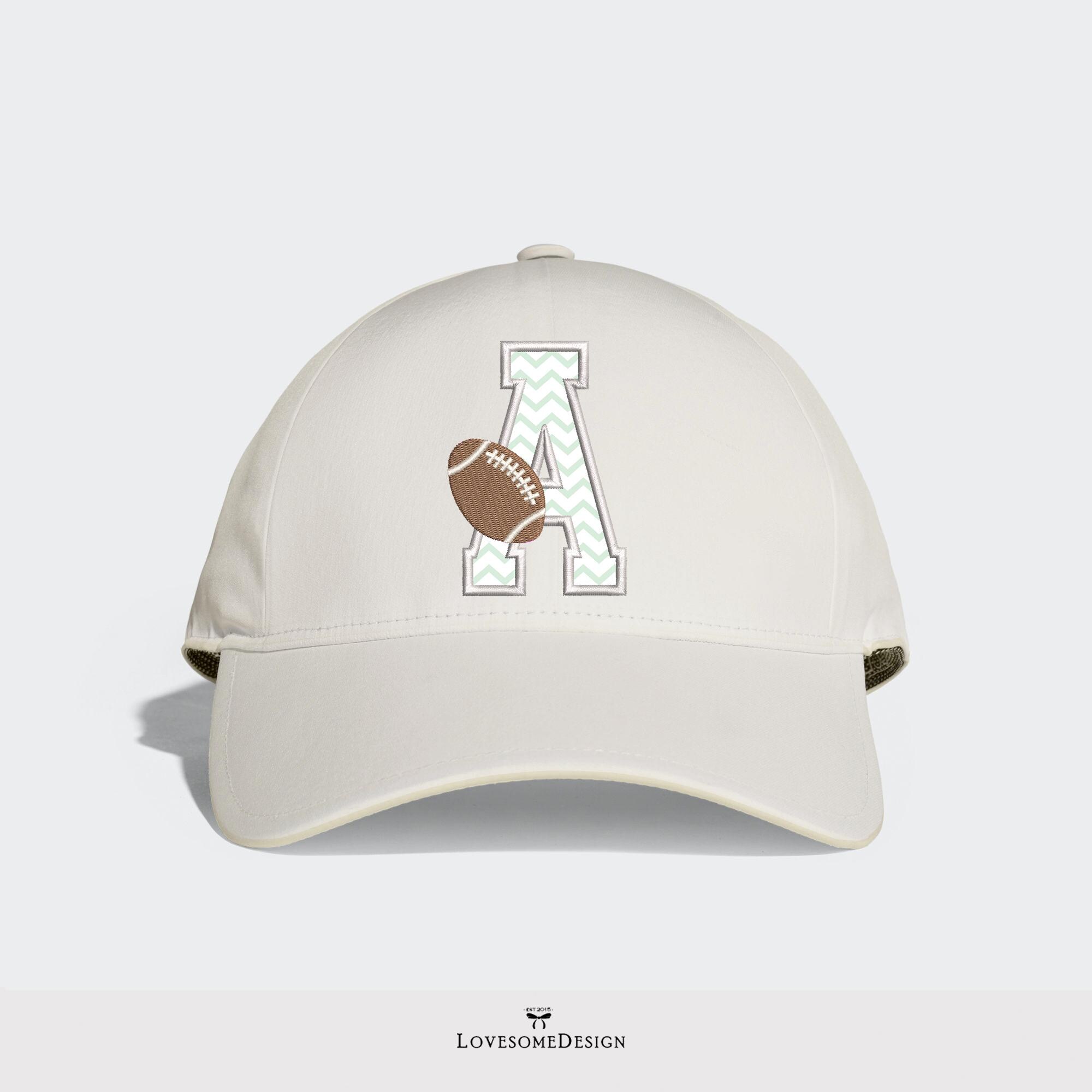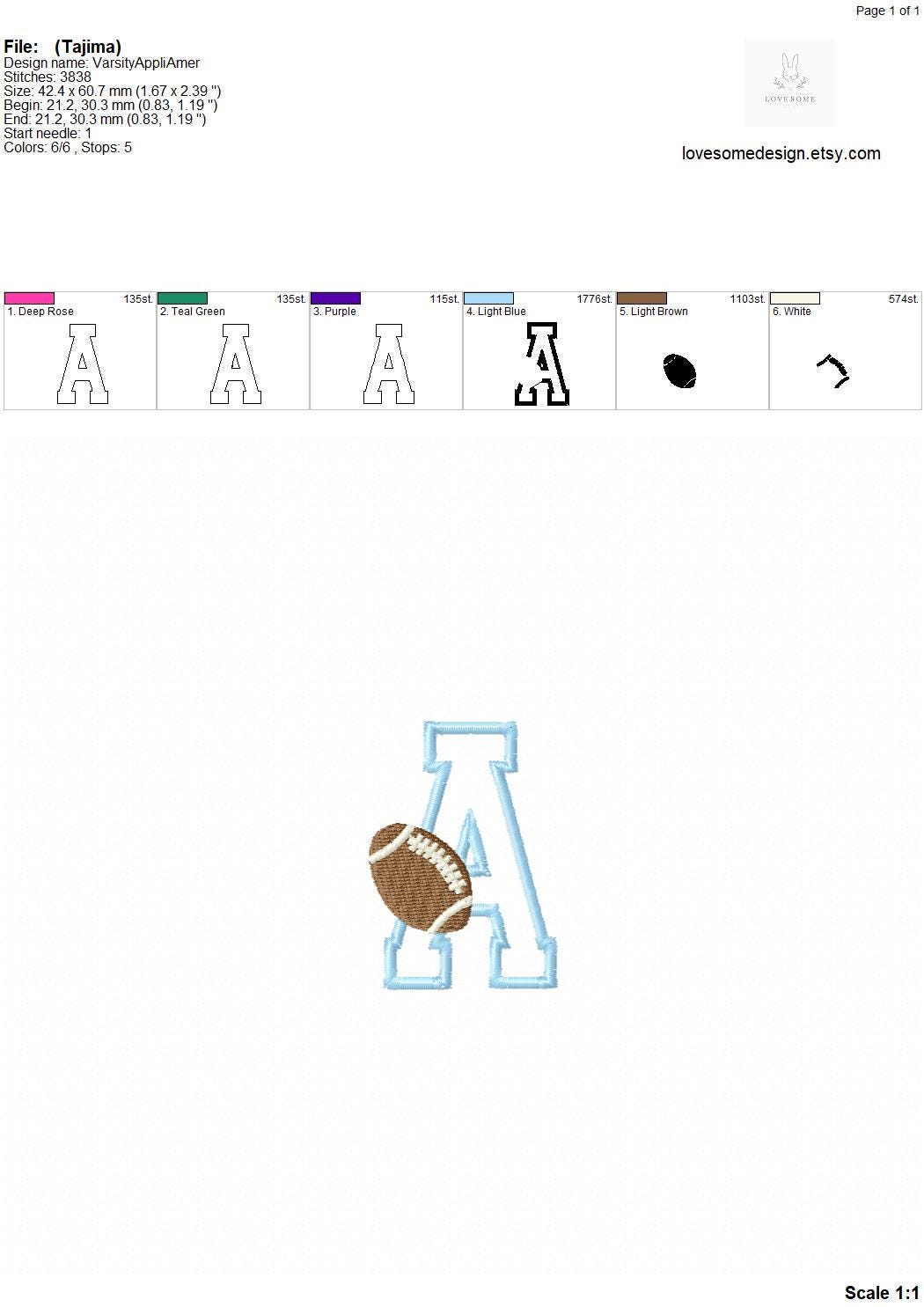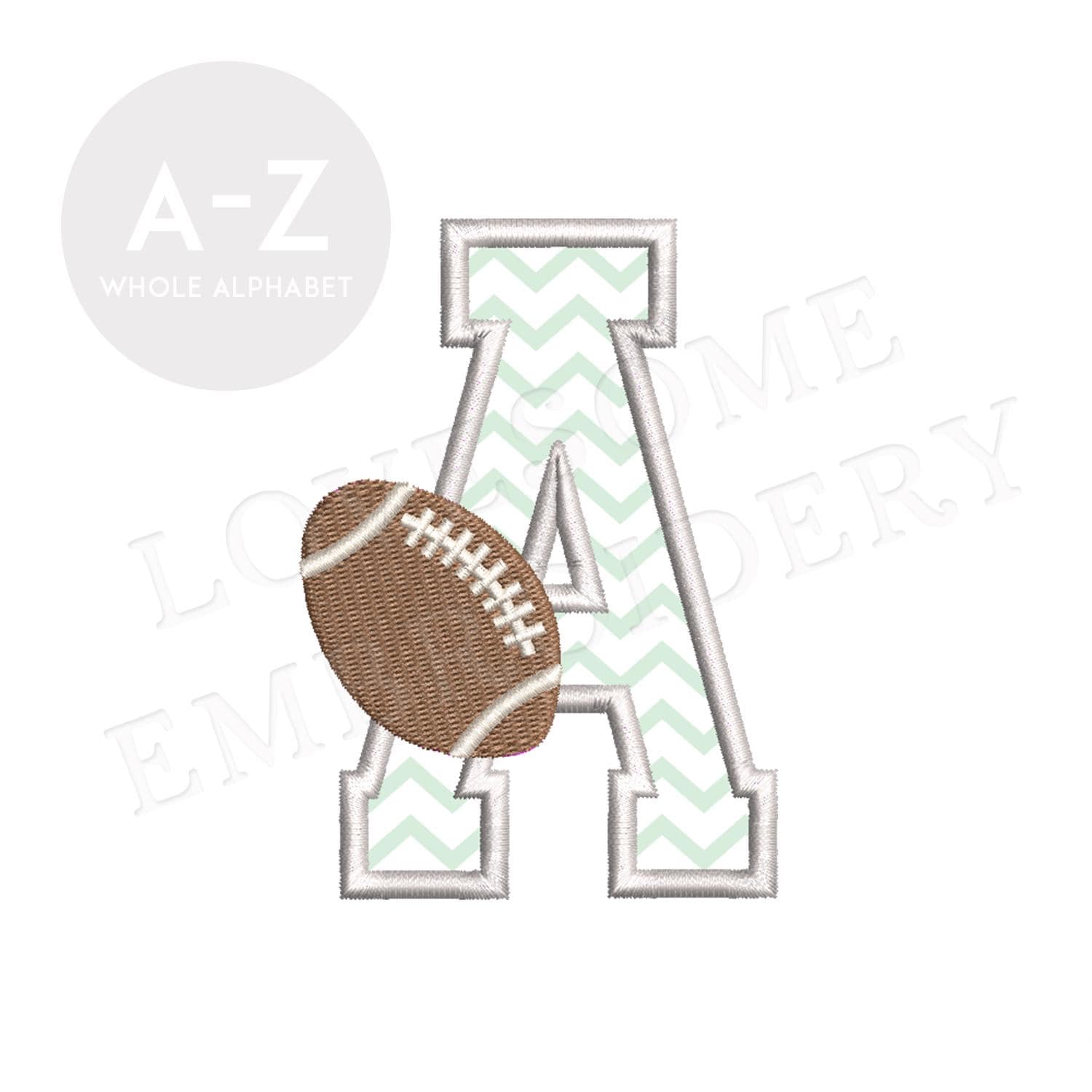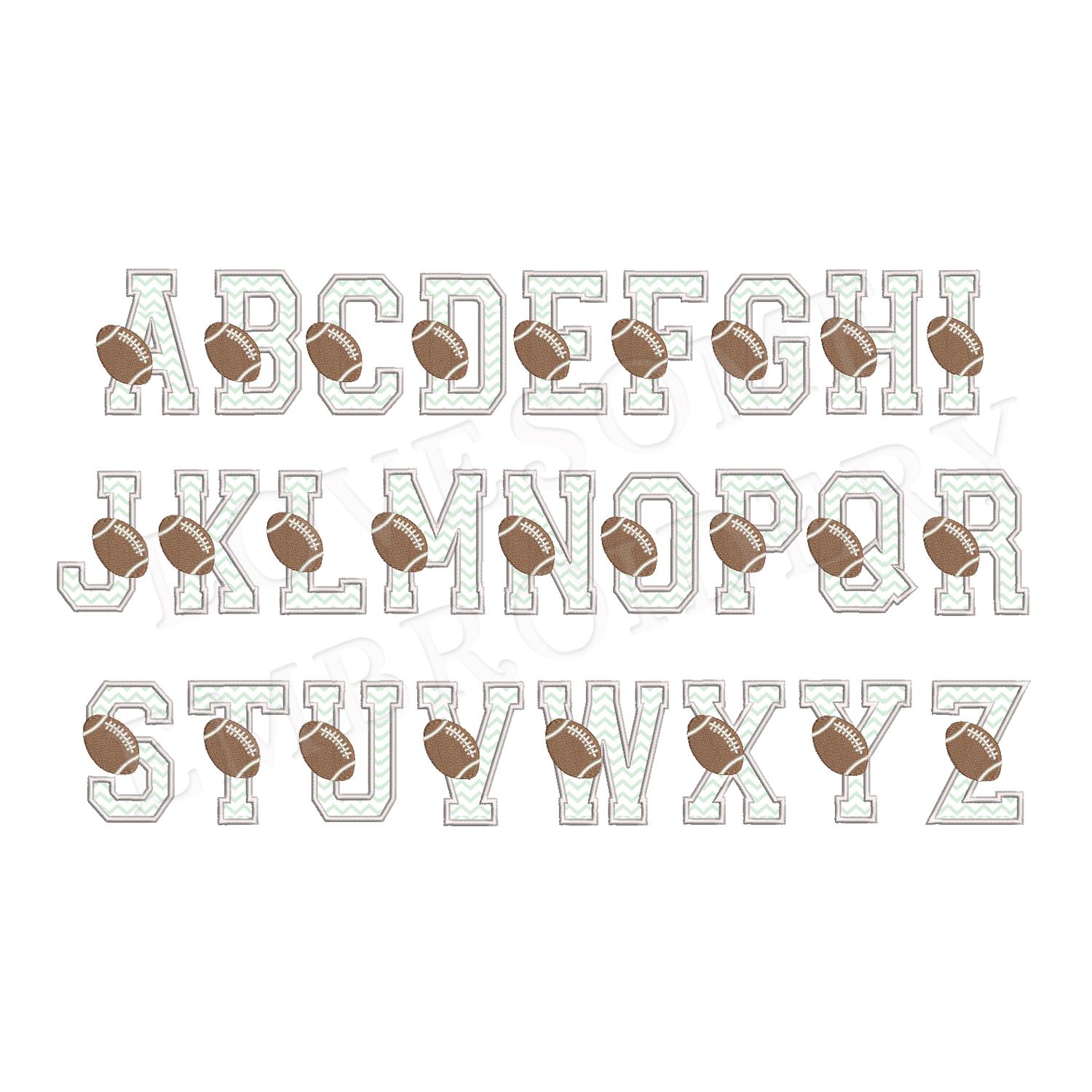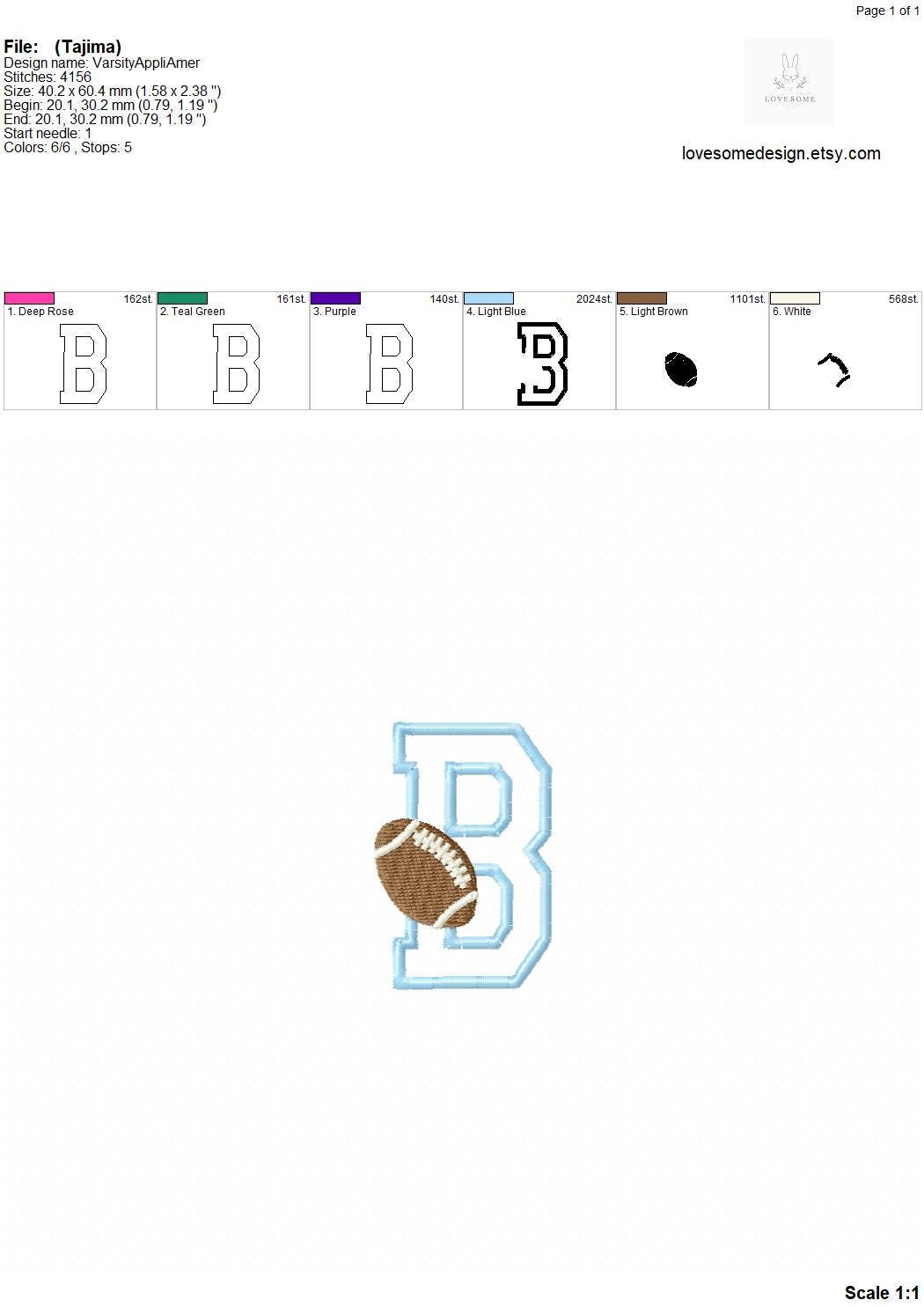
American Football 2.5inch Applique Font A-Z Machine Embroidery Sports Letters, Applique Varsity Embroidery Font | Lovesome Design
This listing features a machine embroidery font set of 26 applique uppercase letters with American football design in 2.5inch size. (For the whole set, pls see the listing images.)